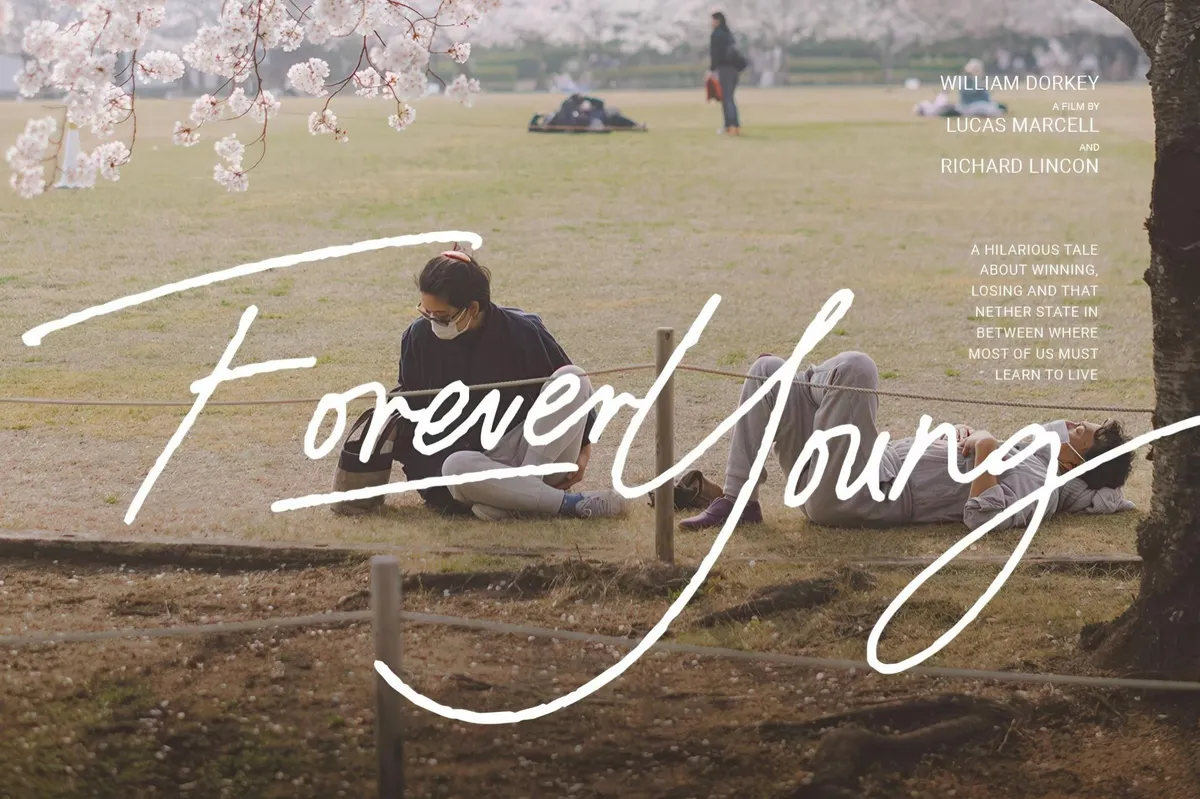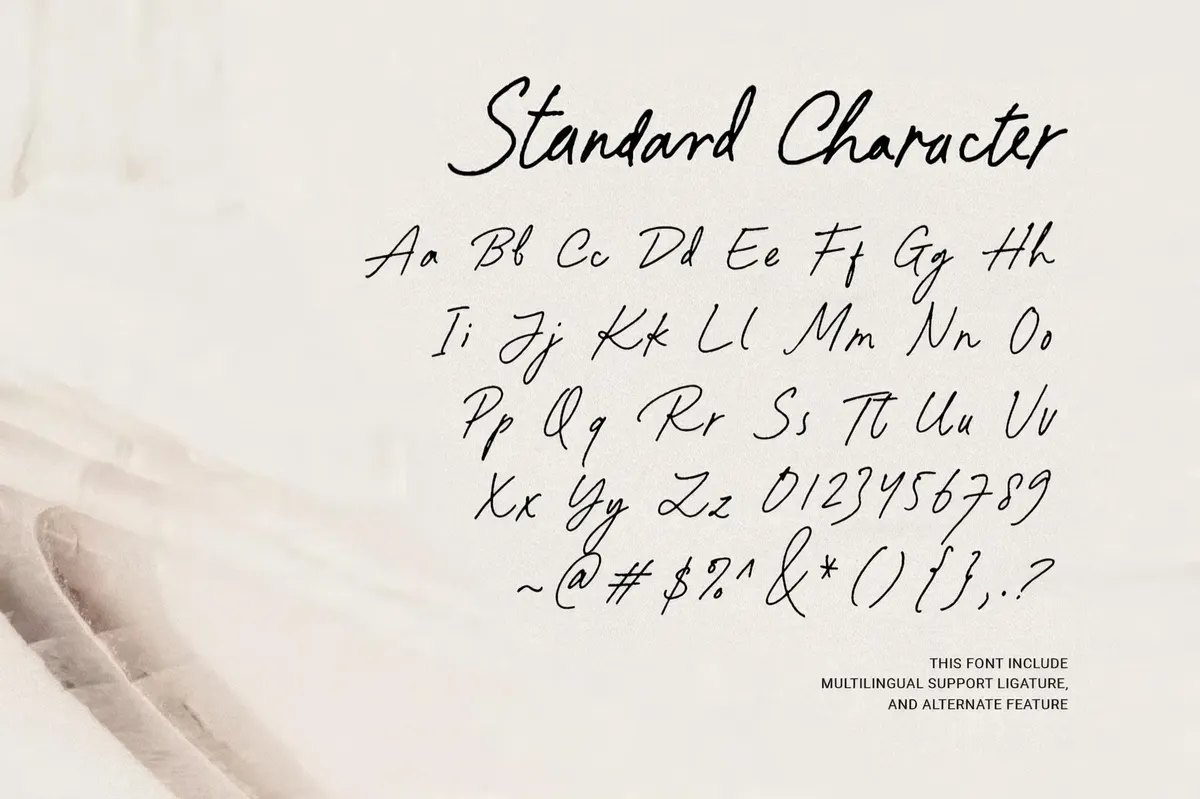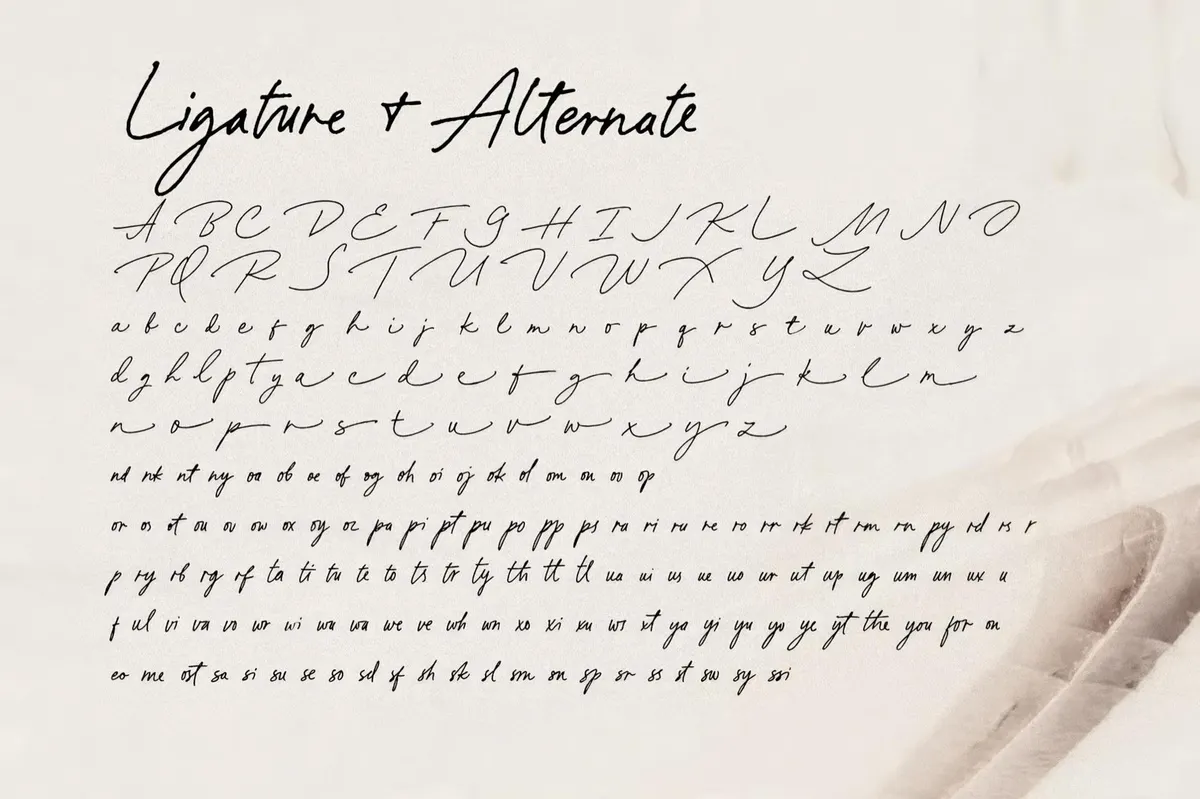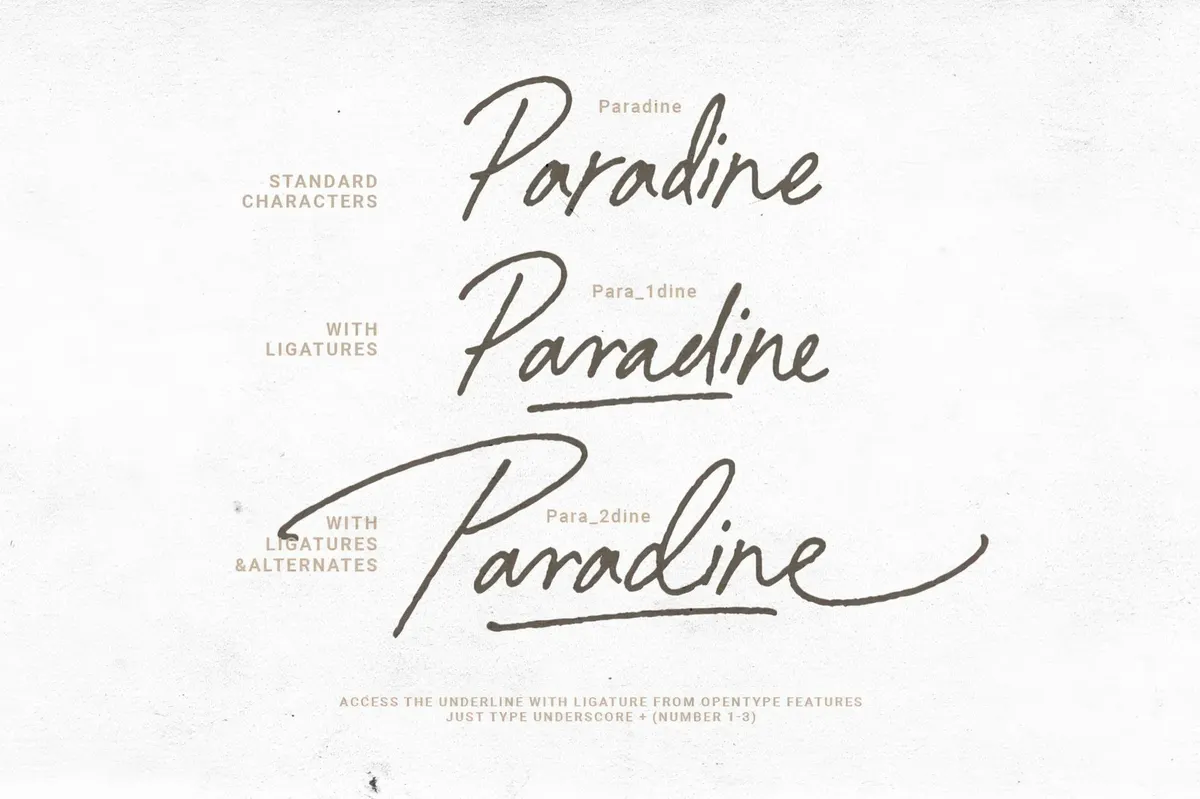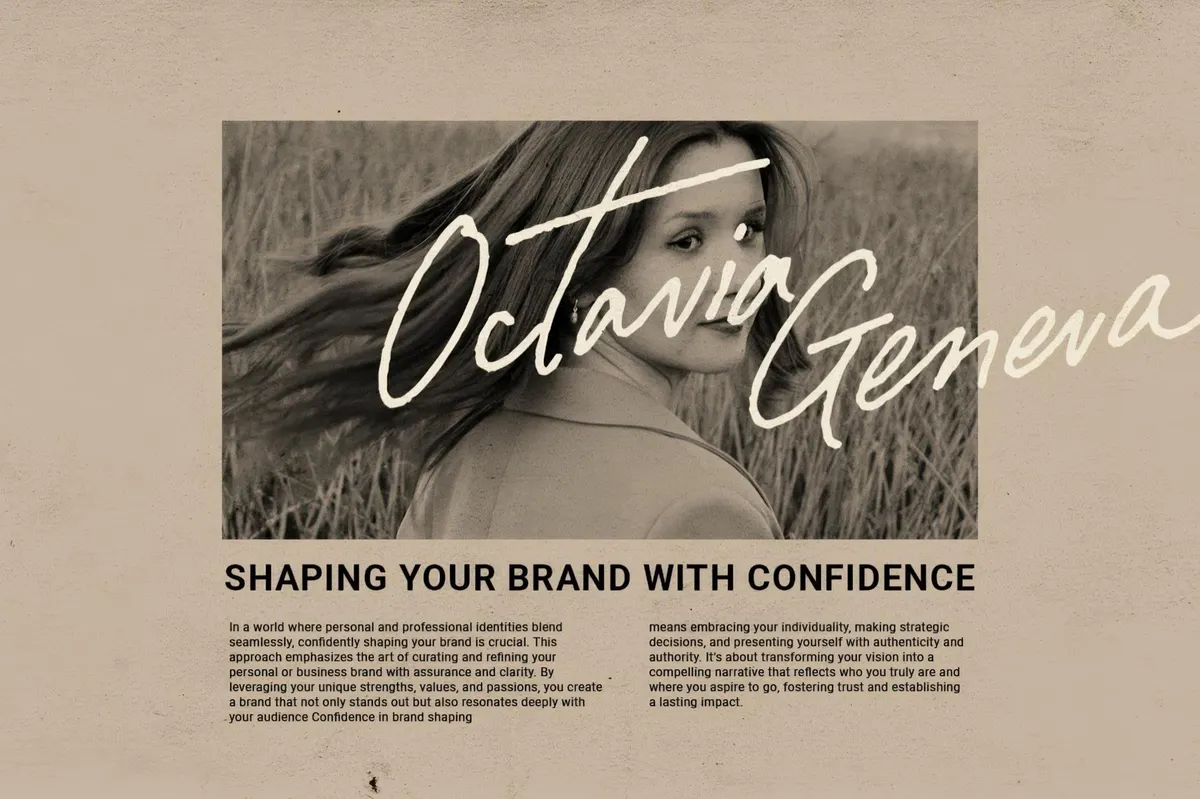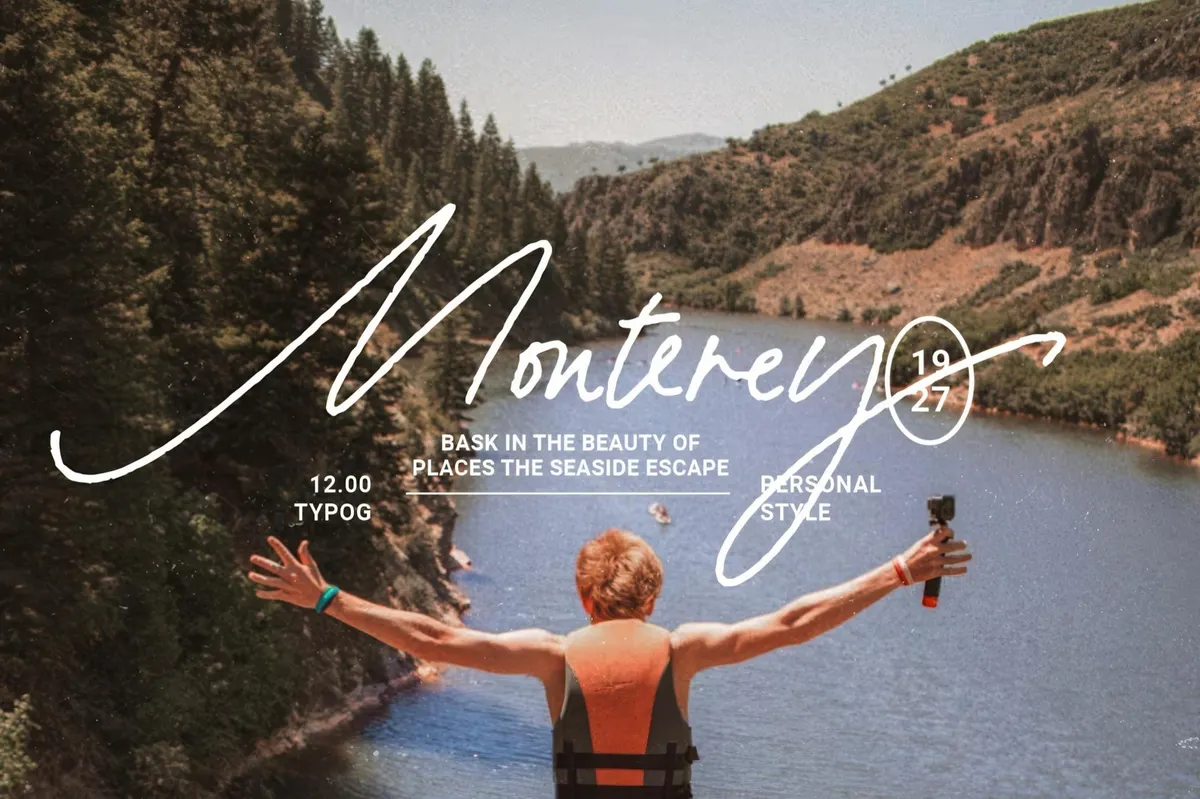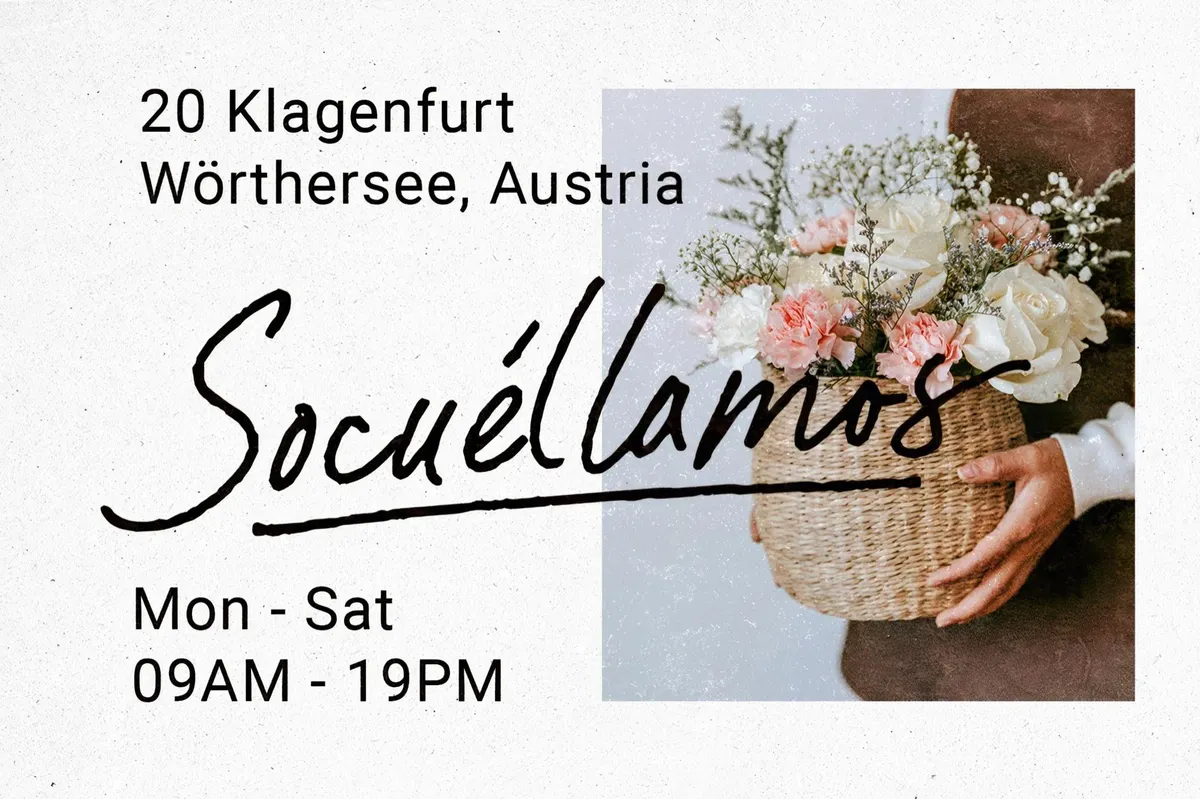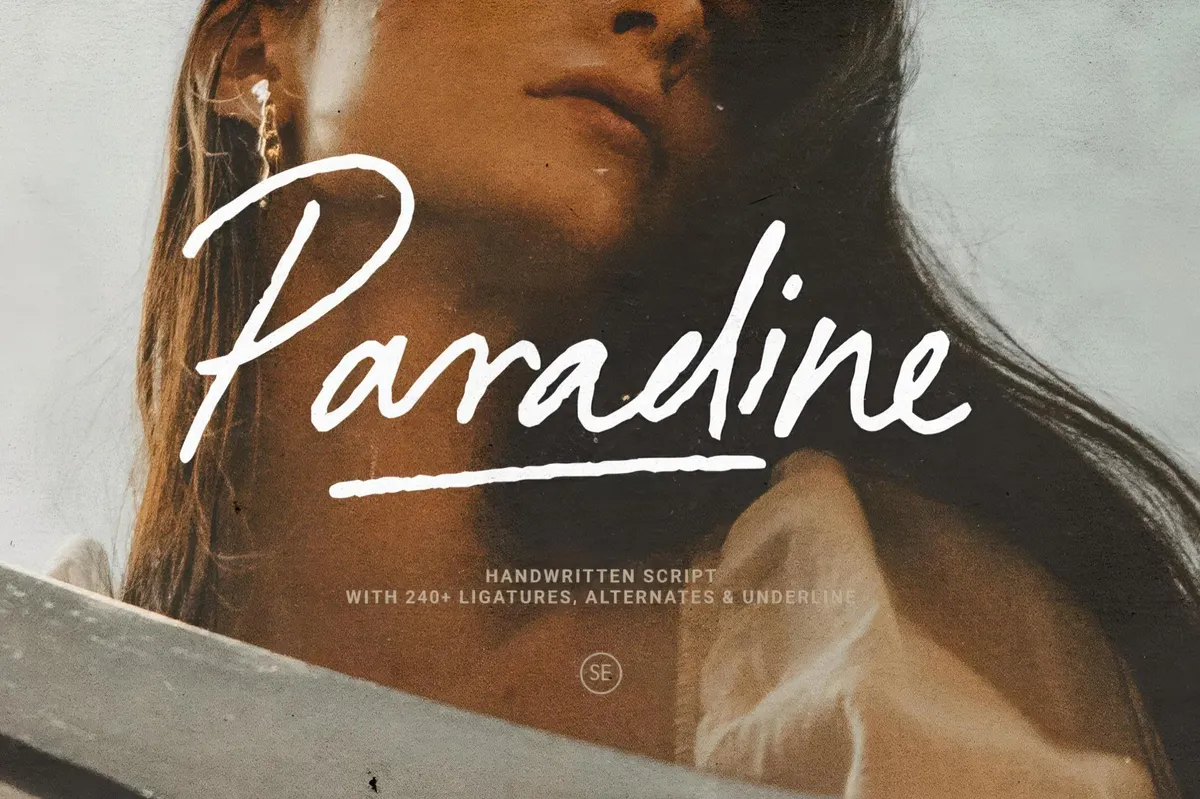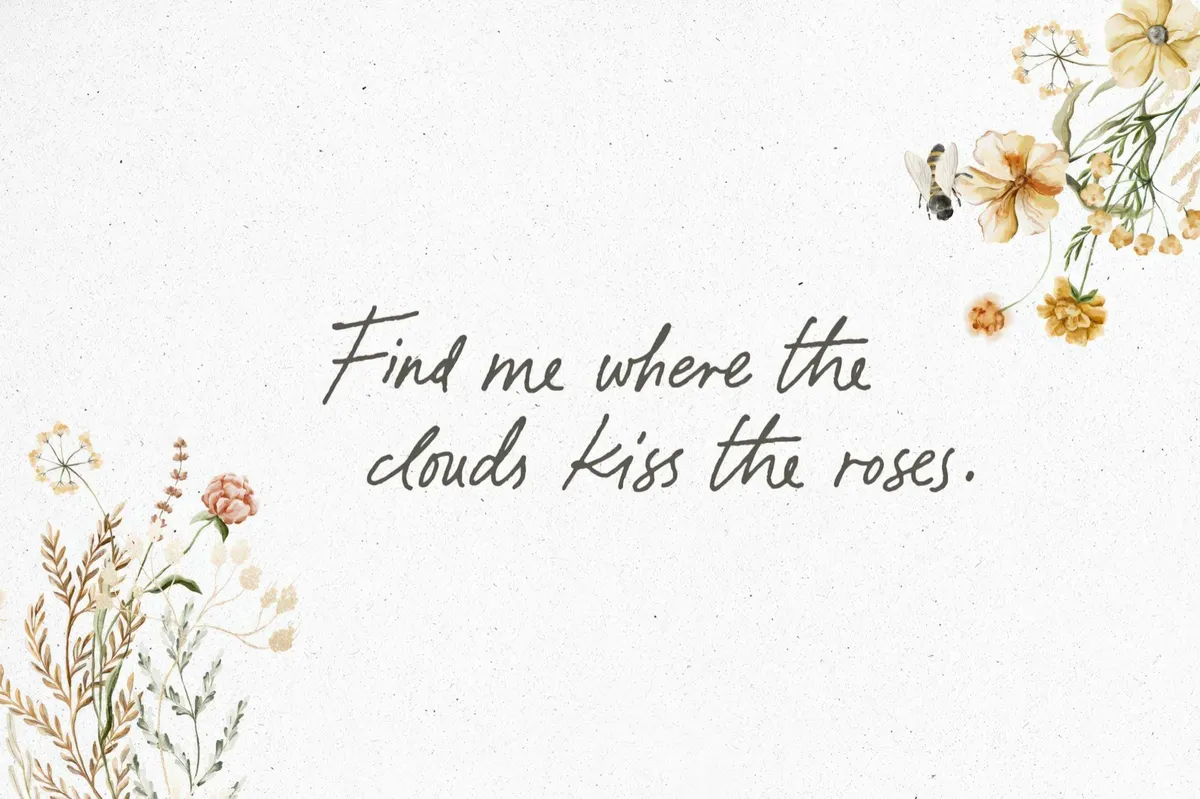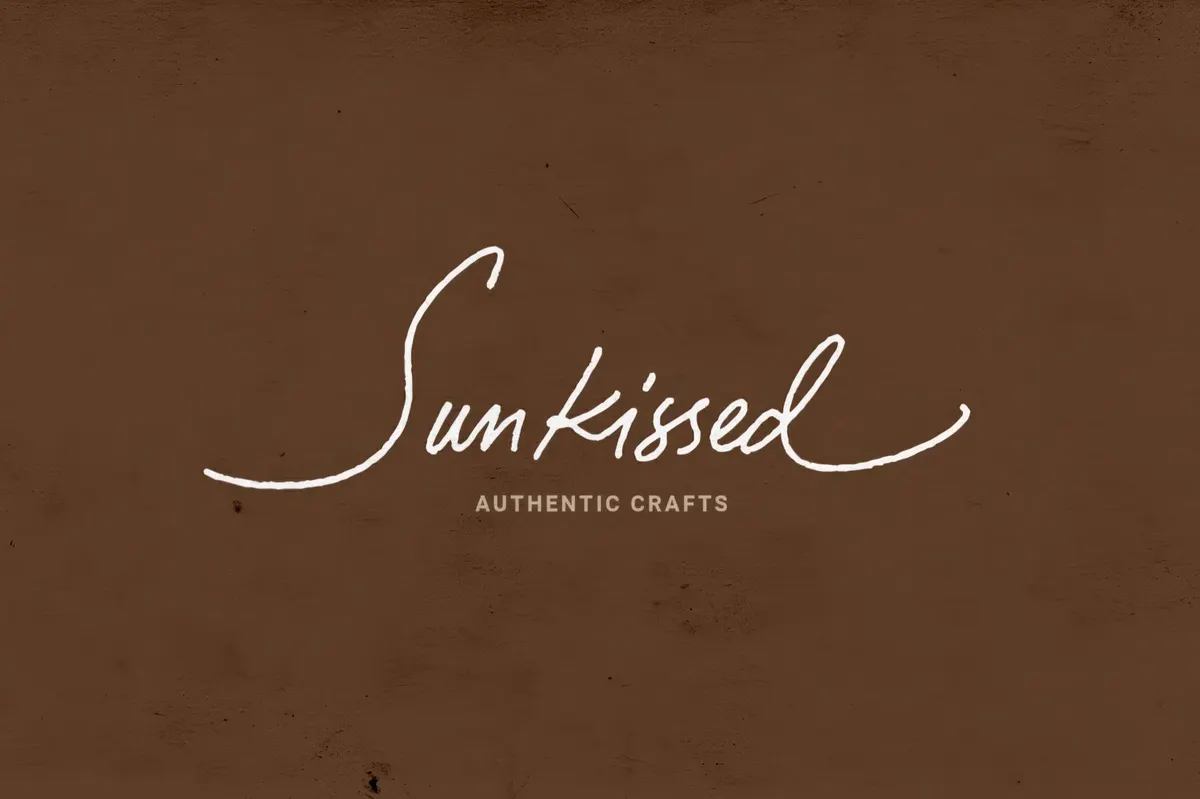
Paradine — Ligature Handwritten Font
Paradine is a handwritten script typeface with a casual yet elegant brush-like quality. It mimics natural ink strokes, resorting to vintage signage or faded cards and letters. The font's got dynamic strokes with varied thickness, imitating actual handwriting. It provides a complete character set, complemented by a bunch of ligatures and alternates.
The font asserts a rustic & nostalgic aesthetic, perfect for editorial design, branding, and album covers. Papradine's style will find its place in fashion branding, lifestyle magazines, album art, and packaging, where a mix of refinement and raw personality is desired.